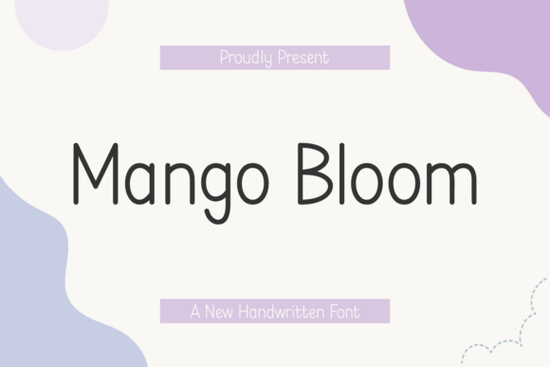
If you're looking for a clean, modern script font that works just as well on a handmade birthday card as it does on a boutique wedding invitation, Mango Bloom Font is worth your attention. It’s not overly ornate or fussy just a smooth, consistent monoline script with gentle curves and quiet confidence. Designed with real-world use in mind, it fits naturally into projects where readability and charm matter more than flashiness.
What kind of projects does Mango Bloom work best for?
This font shines where simplicity meets personality. Think handwritten-style quotes for Instagram posts, minimalist book covers, or labels for small-batch jam jars. Because it’s a true monoline (no thick-and-thin stroke variation), it scales cleanly across sizes from tiny planner stickers to large wall prints. Crafters using Procreate or digital planners often choose Mango Bloom for its even weight and friendly rhythm. Print-on-demand sellers appreciate how well it holds up on t-shirts and tote bags without needing extra outlining or shadow effects.
It’s also popular for seasonal themes: soft spring layouts, Mother’s Day cards, baby shower banners, or even food-themed graphics like farmers’ market signage. Its adaptability isn’t about being “all things to all people” it’s about staying legible and pleasant across contexts without demanding attention away from your message.
How does it compare to other popular script fonts?
Unlike bouncy, high-contrast scripts like Ice Cream Alley, Mango Bloom keeps things grounded and relaxed. If you’ve tried Sunny Font and found it a little too playful for formal events, Mango Bloom offers a gentler alternative still warm, but with more breathing room between letters. For those who love the clean look of Chunky Chaos but want something lighter and more delicate, Mango Bloom delivers that balance.
It’s less decorative than many display scripts, which actually makes it more versatile. You won’t need multiple weights or alternates to get usable results just one well-drawn file, with standard OpenType features (like ligatures and stylistic sets) included where helpful.
Is Mango Bloom beginner-friendly?
Yes if you’re new to working with script fonts, Mango Bloom is forgiving. Its letterforms connect smoothly but don’t require manual kerning tweaks for most common phrases. It pairs easily with simple sans-serifs (like Montserrat or Poppins) for contrast, or stands alone in single-line headings. Designers using Canva, Affinity Designer, or even Cricut Design Space report few compatibility issues.
One practical note: because it’s monoline, it doesn’t mimic calligraphy closely but that’s intentional. It’s meant to feel hand-drawn, not hand-lettered. That makes it ideal for digital planners, journal spreads, or printable party kits where consistency matters more than brushstroke realism.
Where else can you use it beyond print and social media?
Small businesses use Mango Bloom for packaging labels, café chalkboard menus (digitally recreated), and even embroidered patches its clean shape translates well to vector-based embroidery software. Hobbyists apply it to vinyl decals, resin coaster designs, and sublimation mugs. And since it includes full Latin character support (plus numbers and basic punctuation), it handles bilingual text reasonably well for English-Spanish or English-French pairings.
If you're building a brand identity, Mango Bloom works well as a secondary font not for body text, but for logos, taglines, or signature elements. It complements serious typefaces without clashing, and avoids the “too-cute” trap some script fonts fall into. For example, pairing it with a sturdy geometric sans like Special Font creates visual interest without sacrificing clarity.
Try pairing Mango Bloom with soft pastel palettes or crisp white backgrounds first. Once you get comfortable with its flow, experiment with subtle shadows or duotone overlays it responds well to light styling without losing its quiet elegance.